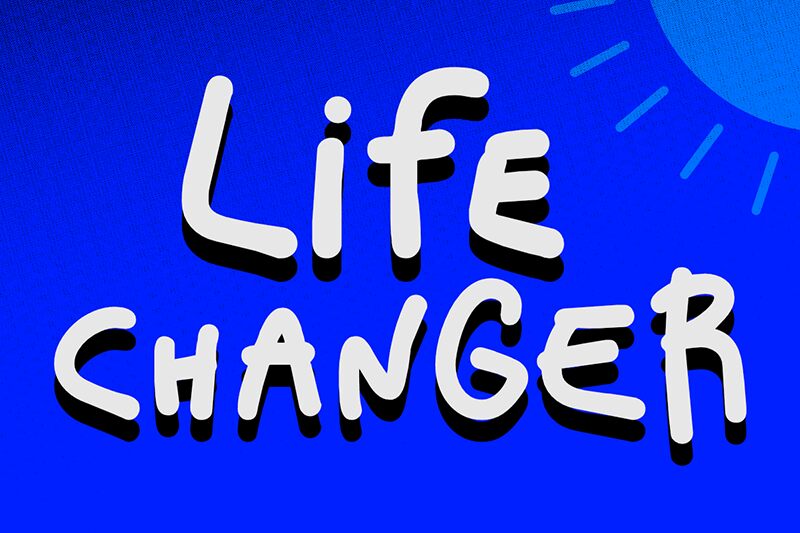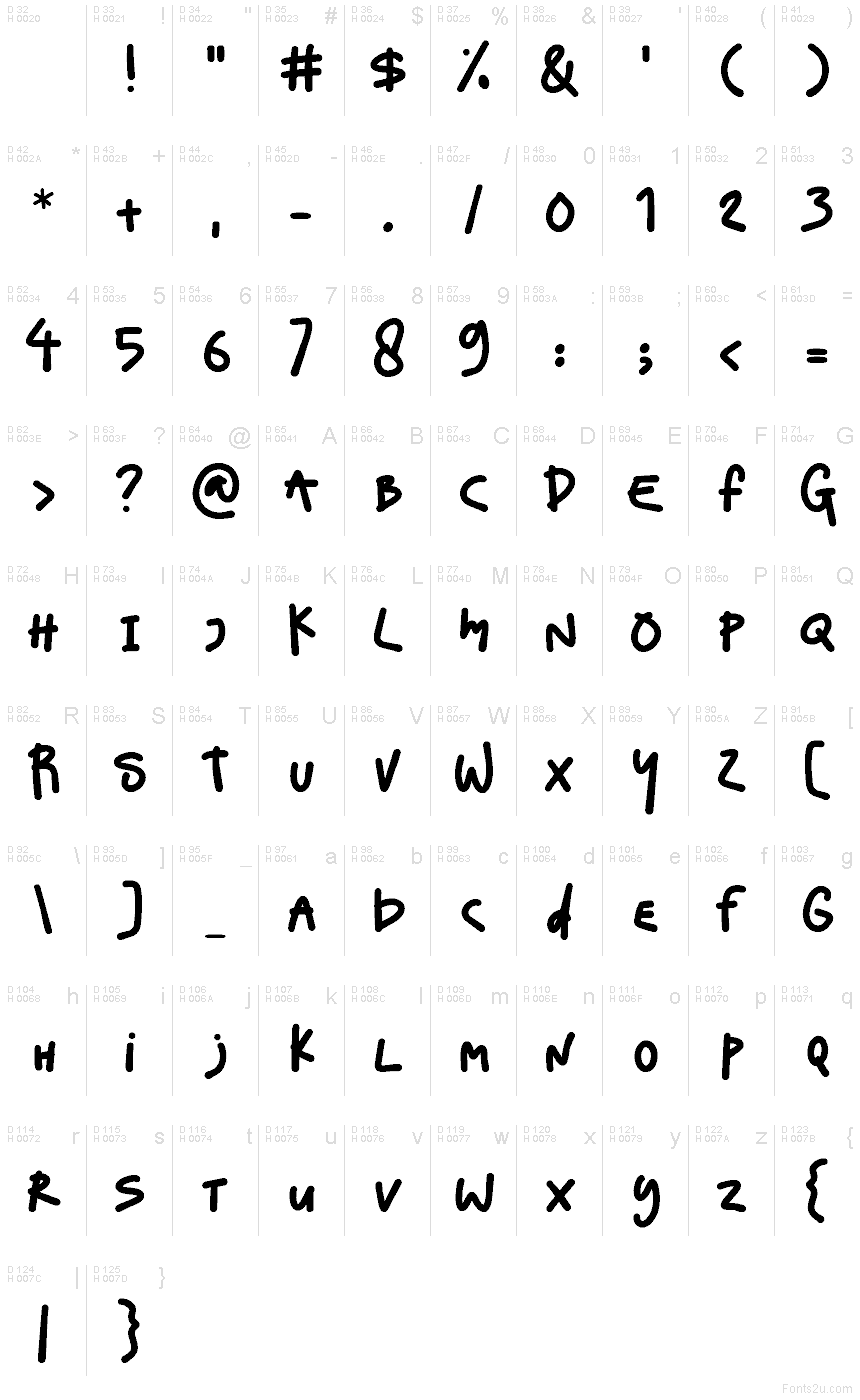
Life Changer font by olivetype is a free handwritten typeface. It solves a common gap: you want real marker energy without the messy, hard-to-read chaos. Chunky, rounded strokes and a gentle bounce give it warmth, while steady spacing keeps headlines crisp and scannable. It feels like a bold felt-tip on smooth paper-friendly, punchy, and easy to spot from a distance.
This free font shines on classroom posters, kids’ products, wellness branding, event flyers, YouTube thumbnails, sticker packs, and social quotes. Using Life Changer gives projects an upbeat, human touch that still reads fast on busy layouts. Pair it with a simple, neutral sans for body text and let Life Changer handle the loud, happy moments.